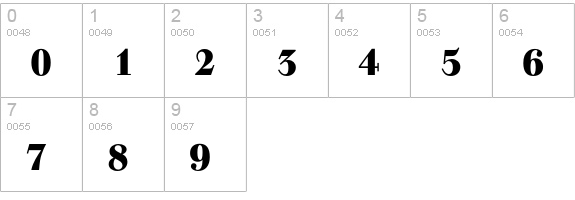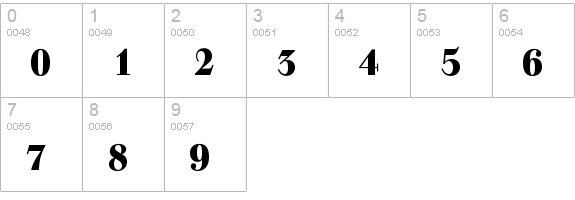
WalbaumEF-Bold Font Details
WalbaumEF-Bold is a strong, high-contrast variant in the WalbaumEF typeface family \xE2\x80\x94 well suited to headlines, attention-grabbing titles, and strong calls-to-action.
WalbaumEF-Bold is a visually stunning font that exudes a sense of boldness and confidence. With its strong and sturdy letterforms, this typeface is perfect for making a powerful statement in any design project. The thick, heavy strokes of each character demand attention and leave a lasting impression on the viewer. The elegance and sophistication of WalbaumEF-Bold make it suitable for a wide range of applications, from editorial designs to branding and advertising materials. Its timeless appeal ensures that it will remain relevant and stylish for years to come. One of the most enticing aspects of WalbaumEF-Bold is that it is available for free. Yes, you read that right – this exceptional font can be freely downloaded at FontsMarket.com. This means that designers and enthusiasts alike have the opportunity to enhance their creative projects without any financial burden. Whether you are a seasoned professional or a budding designer, WalbaumEF-Bold offers the perfect blend of style and functionality. Its versatility allows it to adapt to various design styles and themes, making it a valuable addition to any typography collection. So why wait? Head over to FontsMarket.com and download WalbaumEF-Bold today. Unleash your creativity and elevate your designs with this remarkable font. Remember, great design should never be limited, and with WalbaumEF-Bold, you have the freedom to create without constraints.